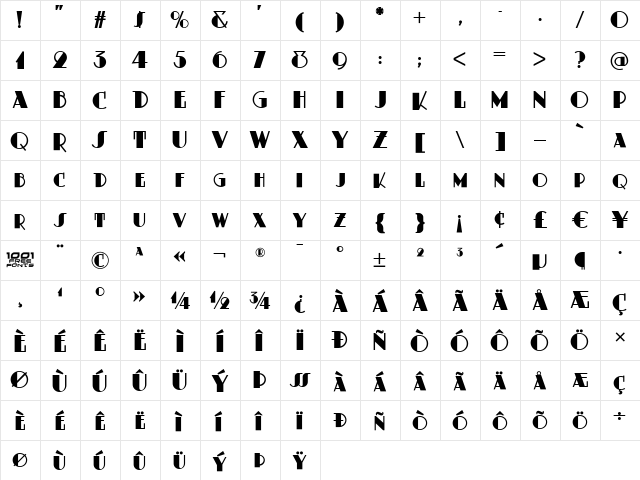
Dusty Rose NF Regular
Design Context for Dusty Rose NF Typeface
Dusty Rose NF is a composed and adaptable typeface that performs quietly and consistently across a wide range of design contexts.